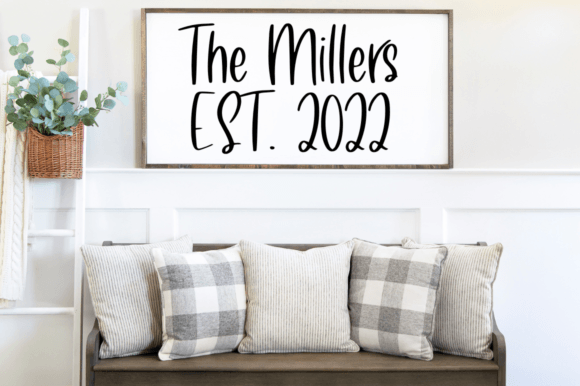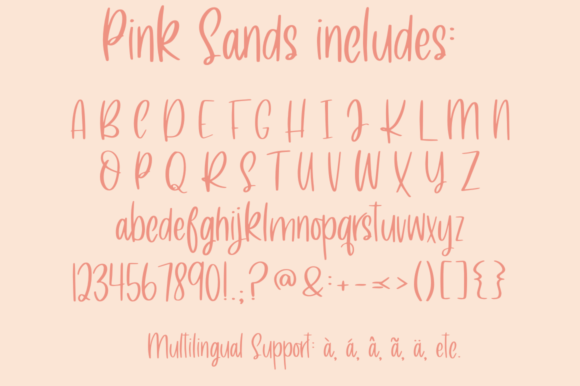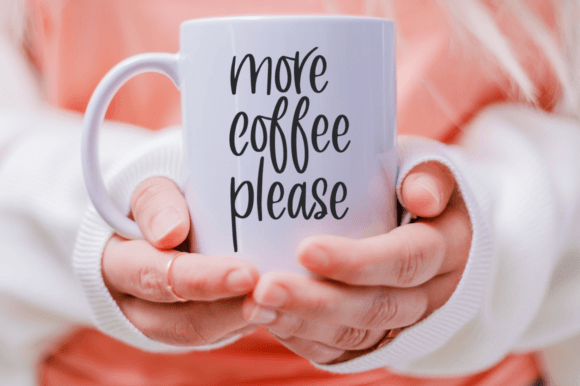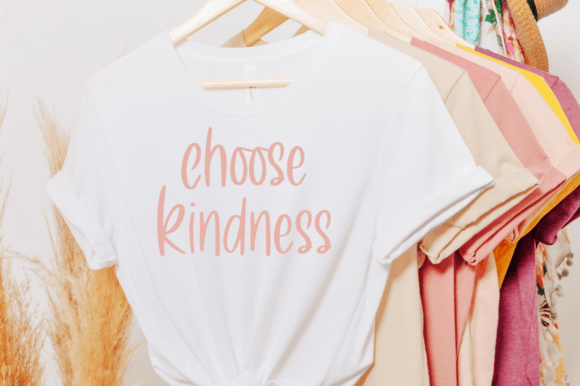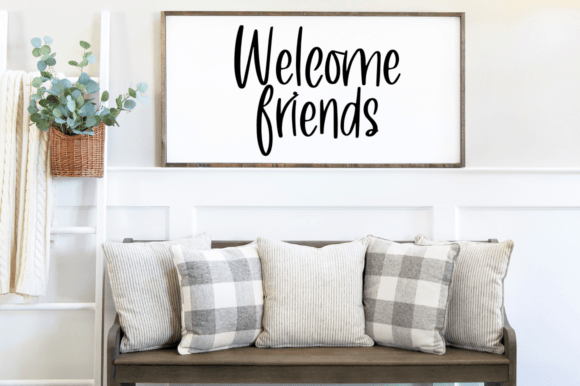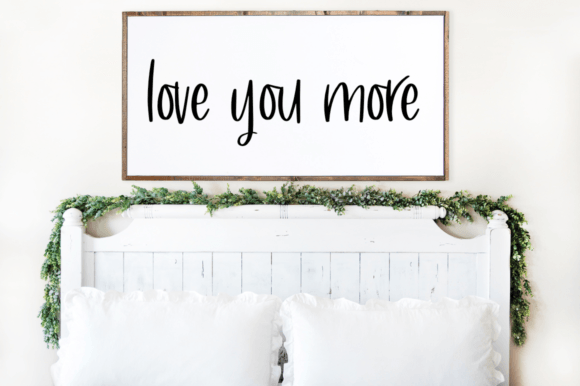
Introduction to Pink Sands Font
Have you ever stumbled upon a design element that instantly sparks your creativity? For designers, that moment can be a game-changer. It’s the thrill of discovering a unique font that can elevate a project from ordinary to extraordinary. And for those who’ve been searching for that perfect touch, we’re excited to introduce the Pink Sands Font – a charming, handwritten font that’s sure to capture your heart.
This lovely font is a design resource like no other, perfect for adding a personal touch to your creative projects. Whether you’re working on a fun logo, a heartfelt greeting card, or a vibrant t-shirt design, the Pink Sands Font is an ideal choice. Its distinct style is not only timeless but also incredibly versatile, making it a valuable addition to any designer’s toolkit.
Key Features of Pink Sands Font
- Transparent background, making it perfect for creative projects that require a subtle, non-distracting font.
- High-quality design resource with a unique, hand-drawn aesthetic.
- Designed with versatility in mind, making it suitable for a wide range of creative projects, from logos to packaging design.
Honest Review: Pink Sands Font
I recently stumbled upon the Pink Sands Font, and I must say it’s been a game-changer for my creative projects. This beautiful font is perfect for adding a touch of elegance and sophistication to your designs.
Here are some things that I think work well with the Pink Sands Font:
- ✨ High-quality design: The font is crisp and clear, making it perfect for both digital and print projects.
- ✨ Transparent background: The font’s transparent background allows for seamless integration with other design elements, giving you more creative control.
- ⚠️ Limited font weights: The font only comes in a few weights, which may limit your design options.
- ⚠️ Not suitable for bold text: Due to its elegant design, the Pink Sands Font may not be the best choice for bold or attention-grabbing text.
Overall, I’m impressed with the Pink Sands Font. It’s a great design resource that’s perfect for creative projects. While it has some limitations, its high-quality design and transparent background make it a valuable addition to any designer’s toolkit.
Tips for Getting the Most Out of Pink Sands Font
To get the most out of the Pink Sands Font, use it in a creative project where its unique style can shine. Experiment with different font sizes, colors, and styles to create a visually appealing design. Remember to adjust the transparent background option to ensure a seamless design.
The Pink Sands Font is commonly used in wedding invitations, social media graphics, and branding materials. Its unique style makes it perfect for creative projects that require a touch of elegance and sophistication.